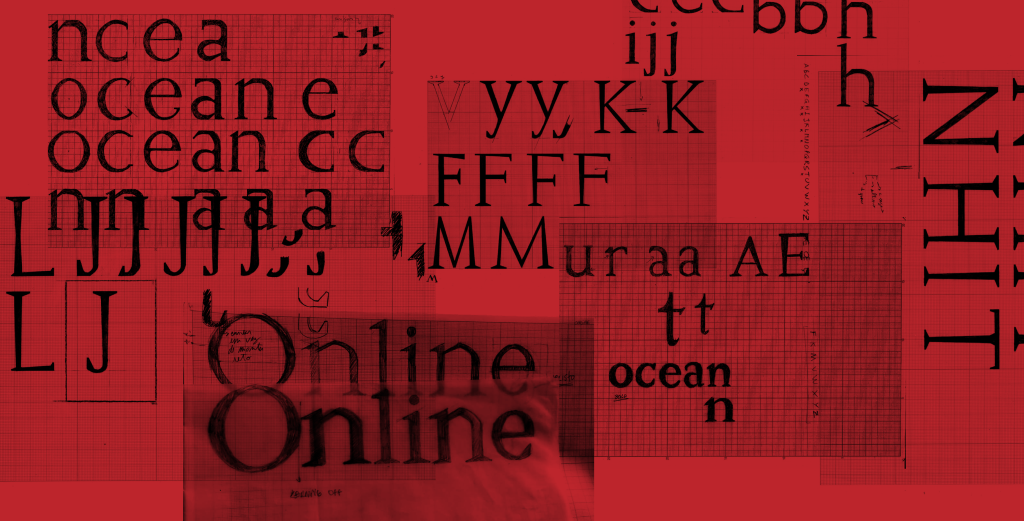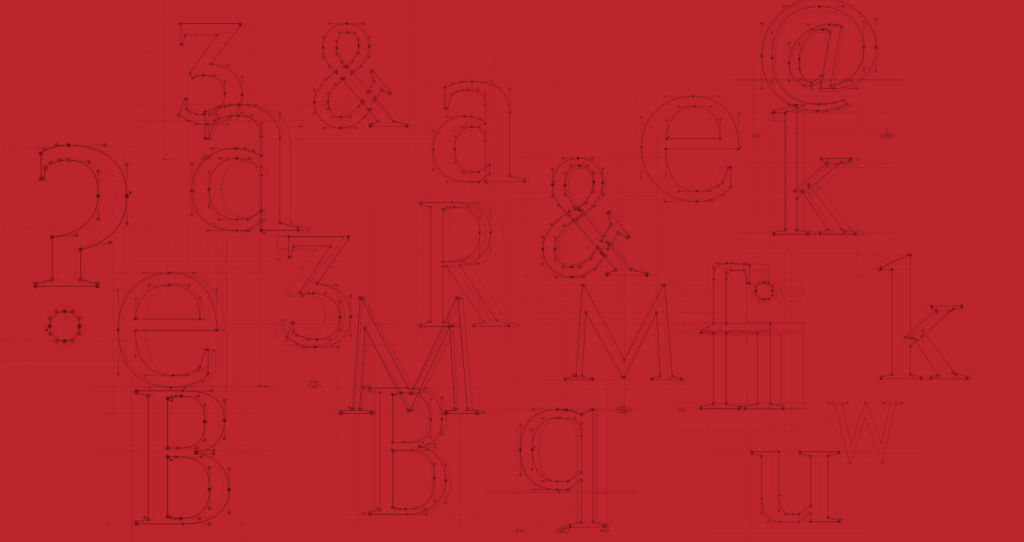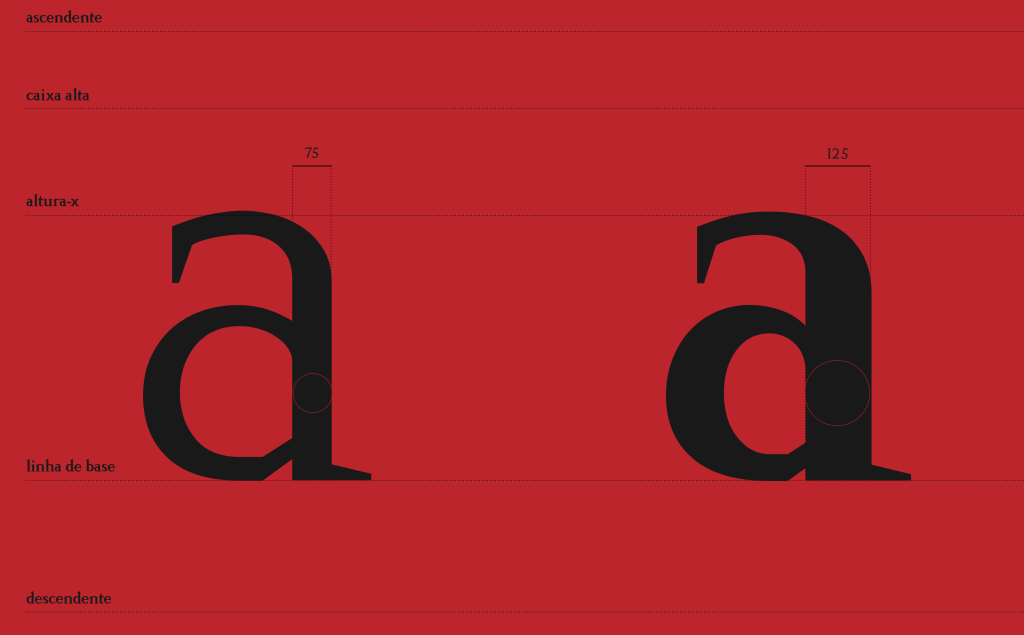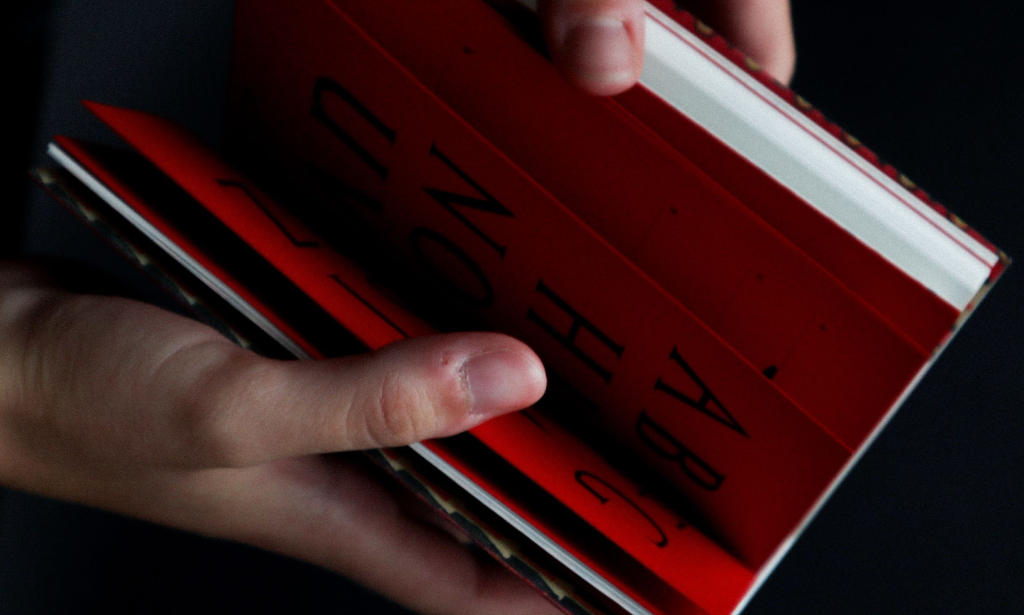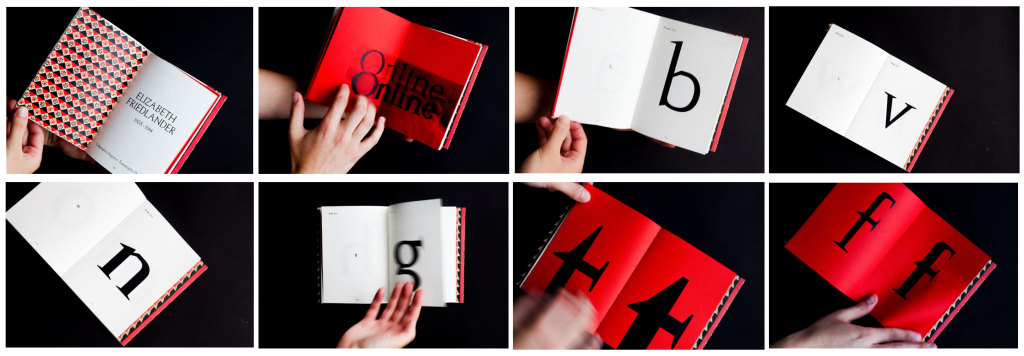
Friedlander Neue is a Transitional Roman typeface, designed by Eunice Bastos, Francisca Rebelo, and Rita Melo in 2024.
Friedlander Neue is a revival and reinterpretation of Elizabeth Antiqua, a typeface originally commissioned in 1927 by the Bauer Type Foundry and completed in 1939 by one of the first recognized women in type design — Elizabeth Friedlander.
Departing from the original assignment brief focused on Tia Lira, the student designers proposed a new direction: to honor the legacy of a female designer often overlooked in typographic history. The resulting project, Friedlander Neue, draws inspiration from the transitional Roman tradition, preserving the anatomy and proportions of the original while introducing adjustments to ensure improved letter width consistency and editorial usability.
Though Transitional in structure, the typeface introduces abrupt serif cuts reminiscent of Latin-style serifs. For refinement, the team referenced typefaces such as ITC New Veljovic®, Caslon, Sectra, and Mason, as well as the calligraphic precision of Sheila Waters.
Designed as a Variable Font with a weight axis ranging from Regular (400) to Bold (700) — and a middle instance at SemiBold (555) — Friedlander Neue offers balanced modulation without extreme contrast. Its moderate modeling, refined serif forms, and humanist tone make it suitable for editorial text, especially in printed reading environments.